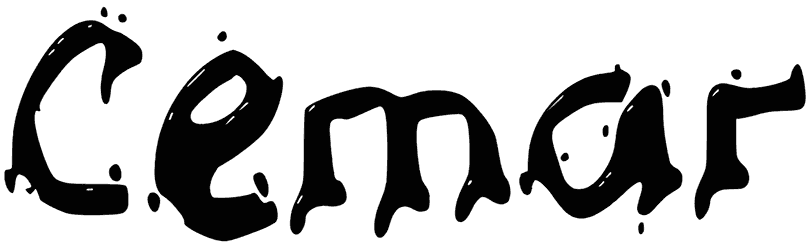
c Cemar Font
When it comes to the art of horror, you can use c Cemar’s thrilling and blood-curdling characters. This dripping font can give a strange makeup to your writing and has a lot of weight in supporting the themes of any project.
Fear is not the only emotion you can evoke using this horror font. Operating c Cemar, you can transfer power, mystery, temptation, and more to the design of posters, environmental advertisements, and book covers.